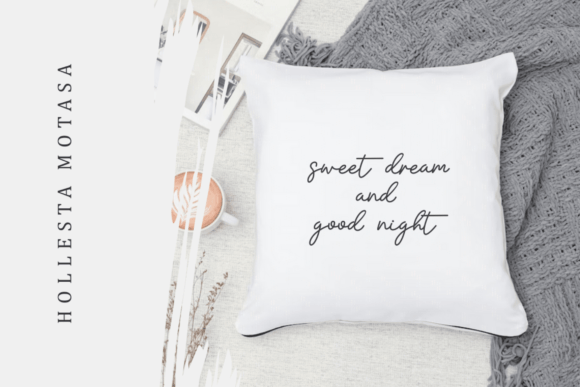
Unleash the captivating charm of Hollesta Motasa, a script font brimming with romance and authenticity. Dive into a world of elegance and creativity, where your words dance with grace upon the page. Crafted by the visionary Kalingga Albert, Hollesta Motasa is a symphony of curves and flourishes, designed to elevate your branding projects to new heights.
Step into a realm of infinite possibilities, where Hollesta Motasa transforms your designs into works of art. Its timeless appeal lends itself effortlessly to a myriad of creative endeavors, from the allure of logos to the intimacy of invitations. With Hollesta Motasa as your creative companion, you'll embark on a journey of self-expression, leaving an unforgettable mark on the world.
Picture your logo adorned with the exquisite beauty of Hollesta Motasa, its flowing characters capturing the essence of your brand. Envision t-shirts adorned with messages of love, friendship, and inspiration, brought to life by the enchanting strokes of this remarkable font. Let Hollesta Motasa be your guiding light as you craft invitations that exude elegance and sophistication, setting the tone for unforgettable events.
The beauty of Hollesta Motasa lies not only in its aesthetic allure but also in its versatility. Its adaptability knows no bounds, seamlessly blending into a diverse range of creative contexts. Whether you're designing captivating social media posts, crafting eye-catching marketing materials, or simply adding a touch of flair to your personal projects, Hollesta Motasa stands as your steadfast companion.
With Hollesta Motasa at your fingertips, you'll discover a newfound appreciation for the art of typography. Its meticulously crafted characters invite you to explore the depths of creativity, transforming ordinary words into captivating expressions. Experience the joy of crafting designs that resonate with your audience, leaving a lasting impression that speaks volumes about your unique style and impeccable taste.